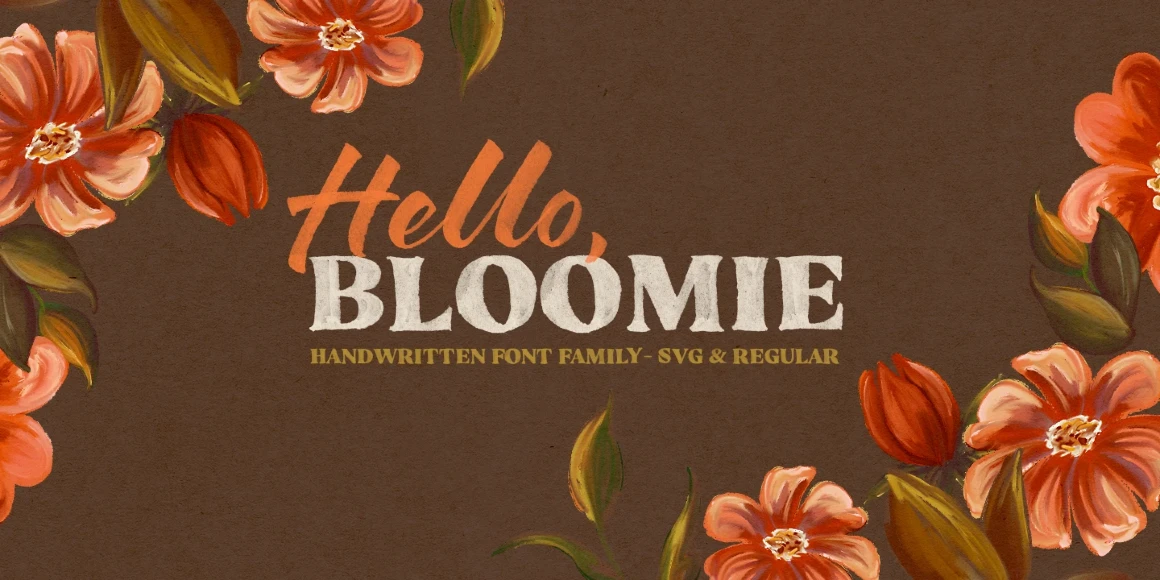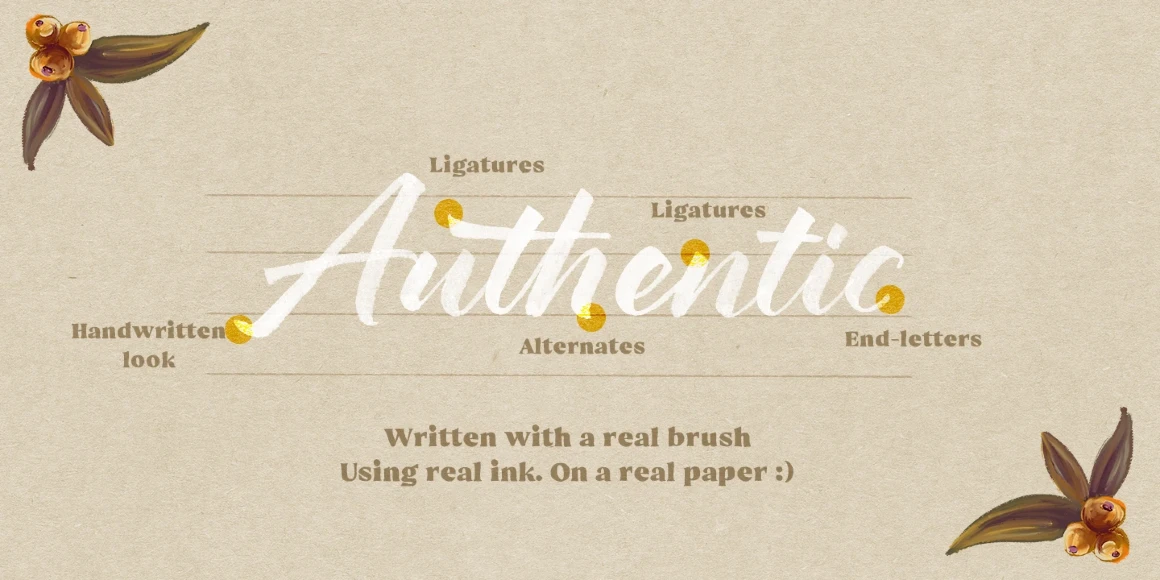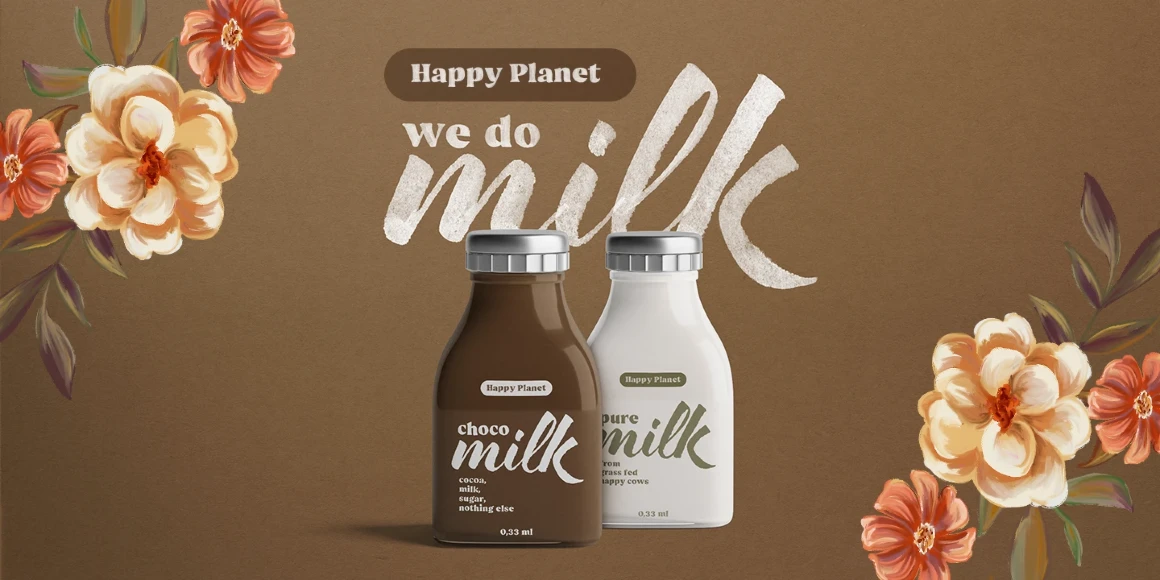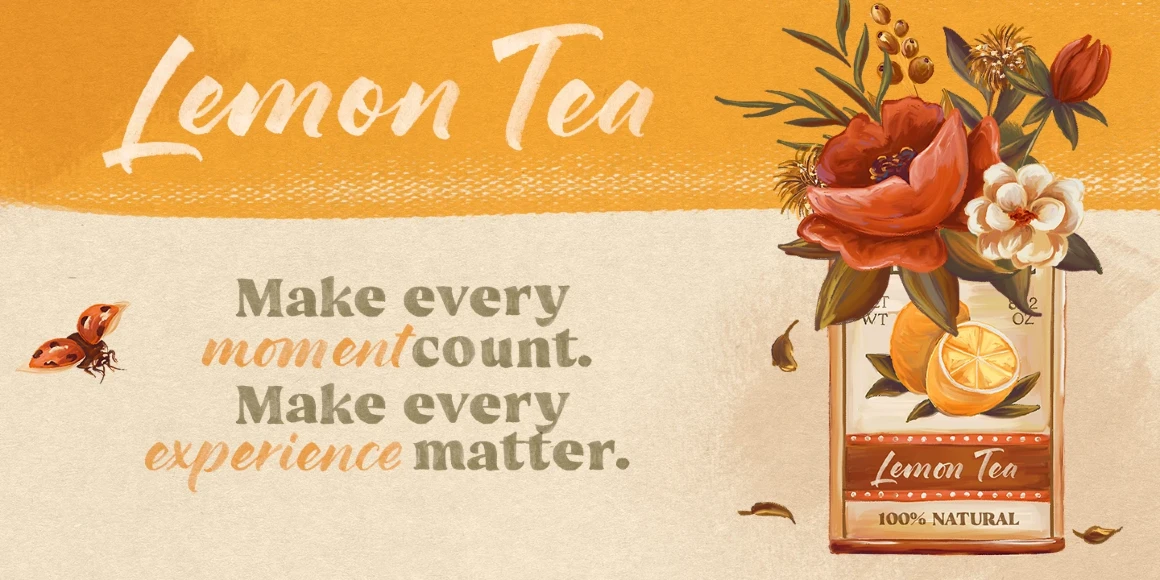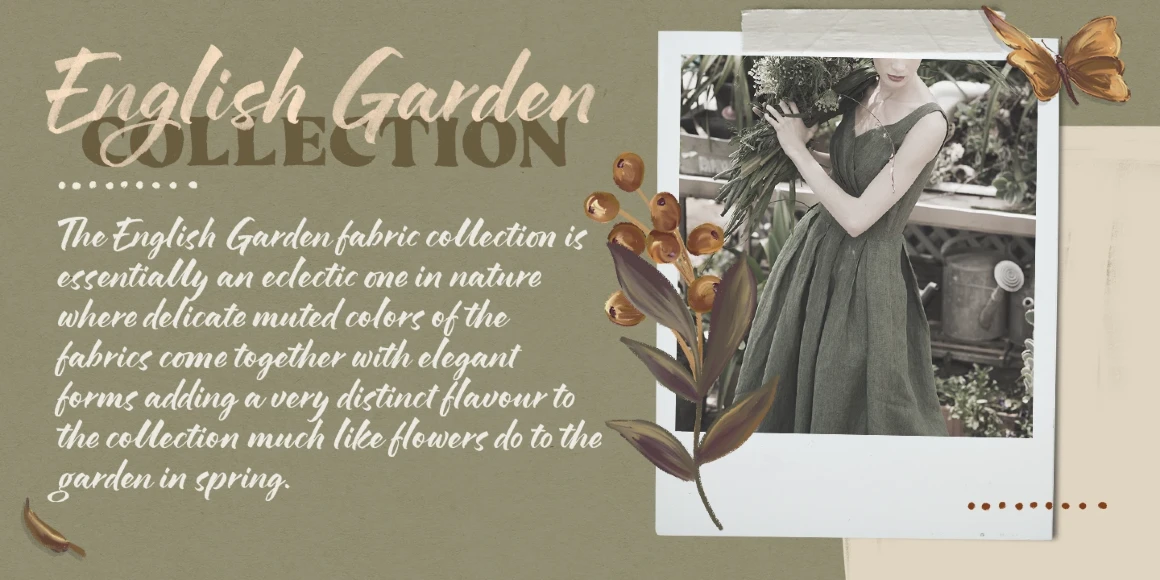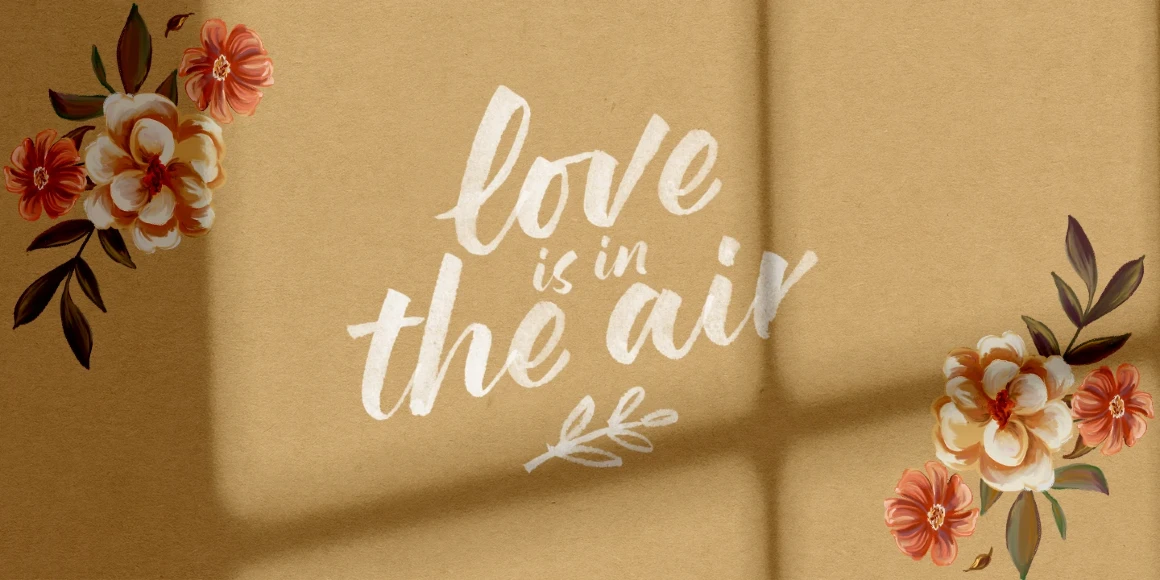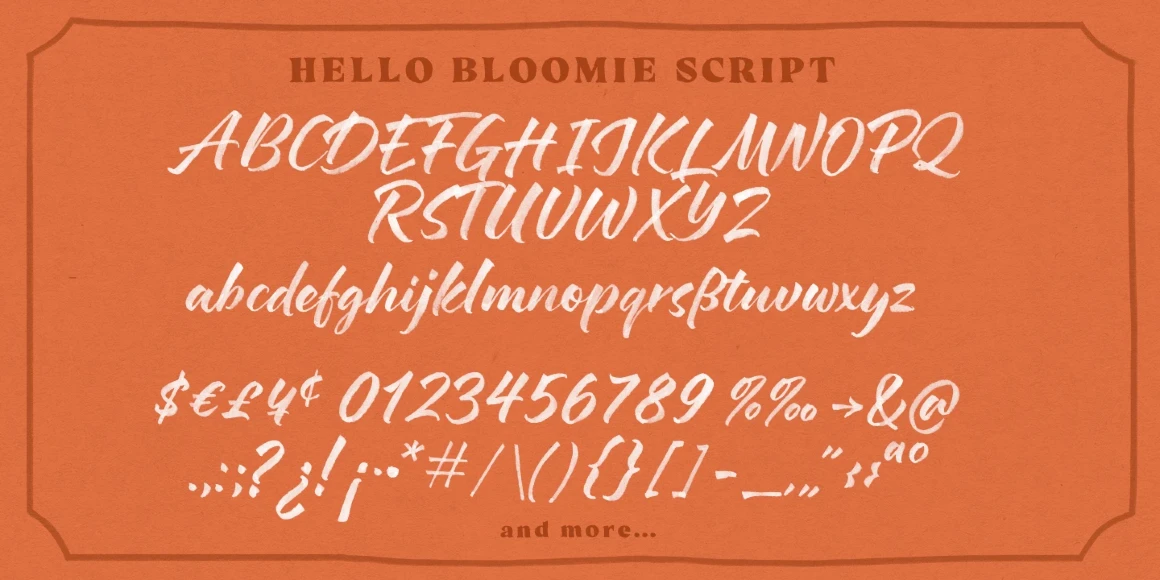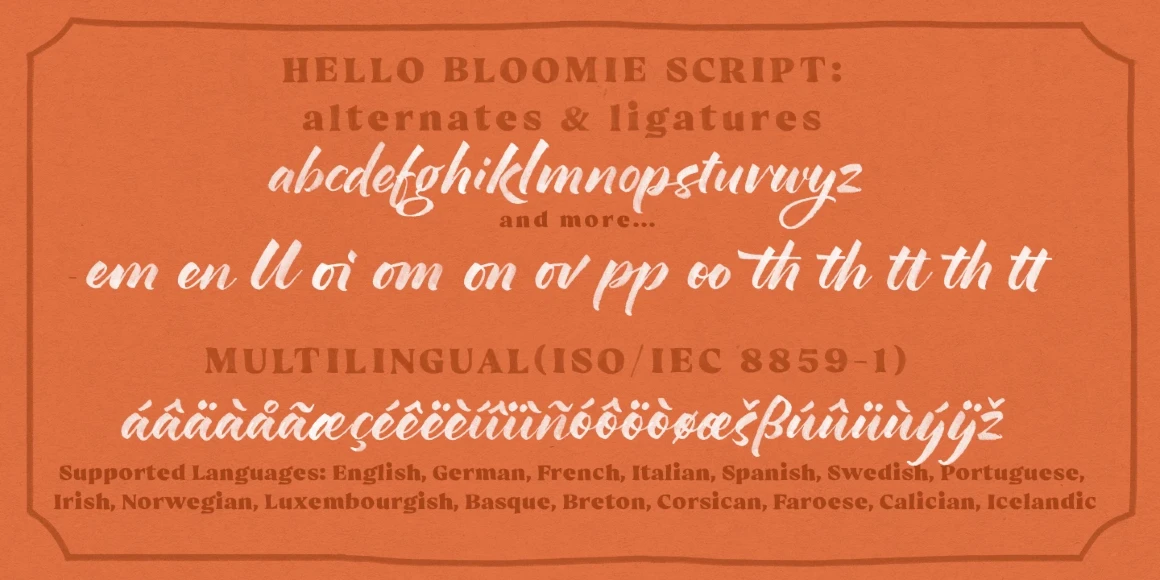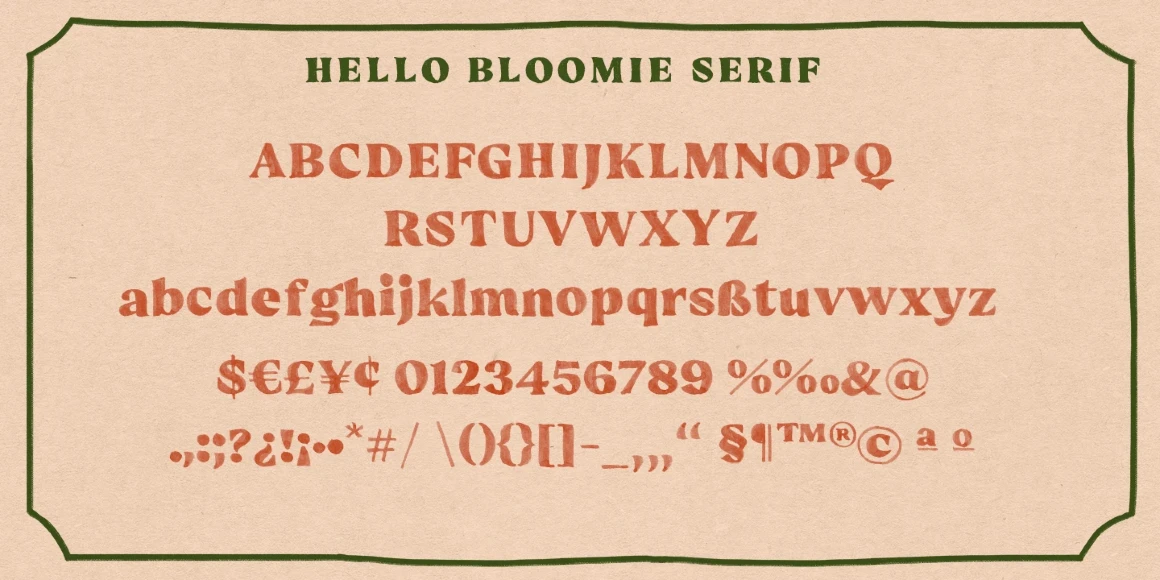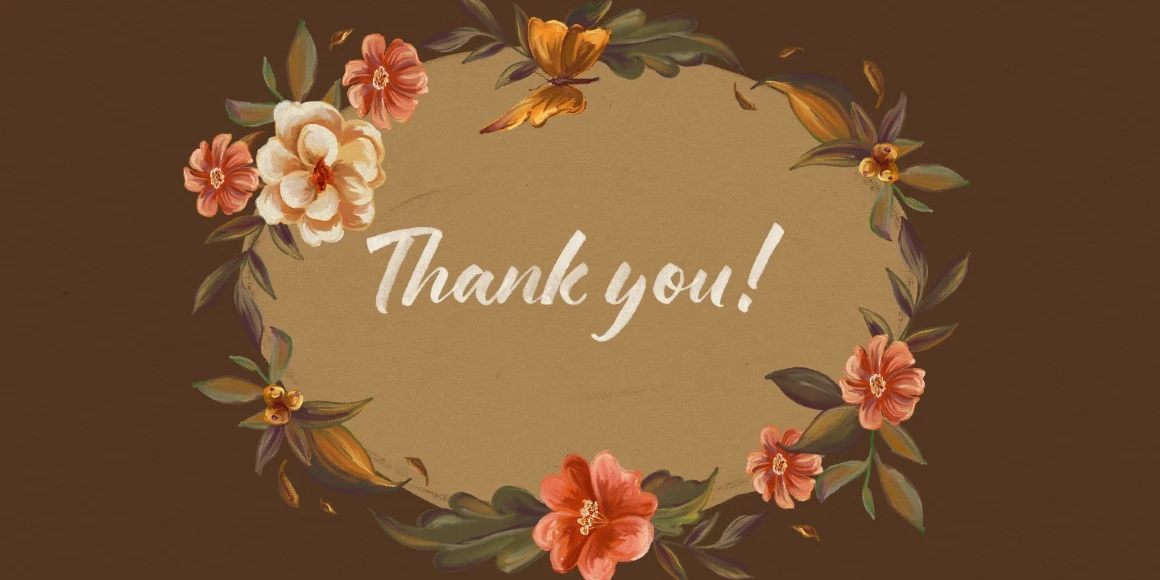
Hello Bloomie Script
By Elena Genova
Hello Bloomie Script Regular
Hello Bloomie is an inky, hand-lettered family with 2 styles: brush script and bold serif. This uniquely complementary family benefits from ligatures, alternates, and a few design elements, allowing you to create unique designs with an authentic hand-drawn look. Hello Bloomie is perfect for branding, greeting cards, packaging design, web design, and publication design, too!